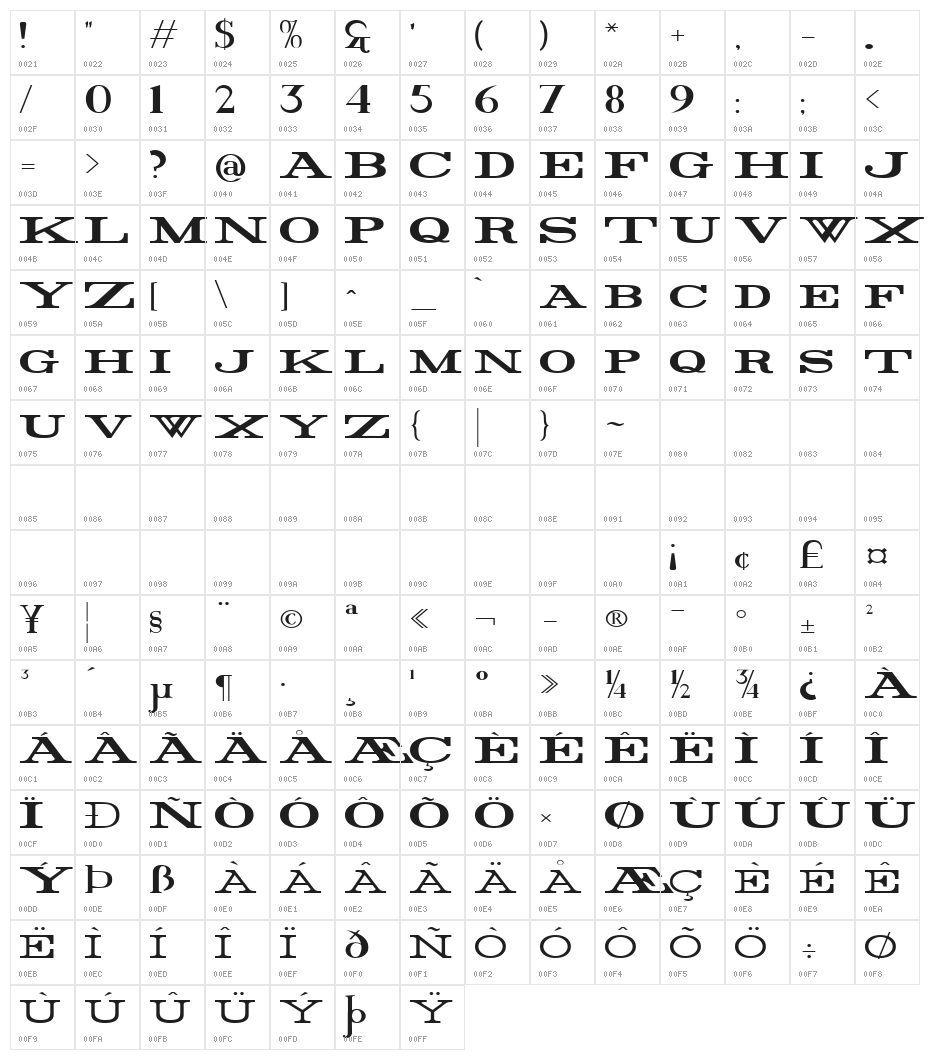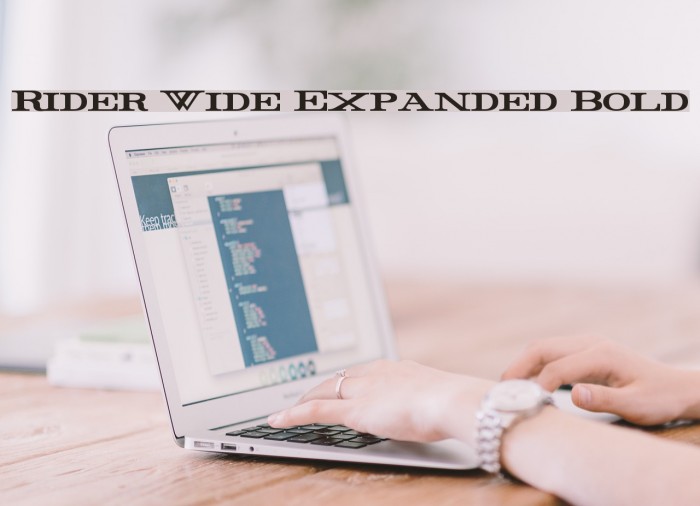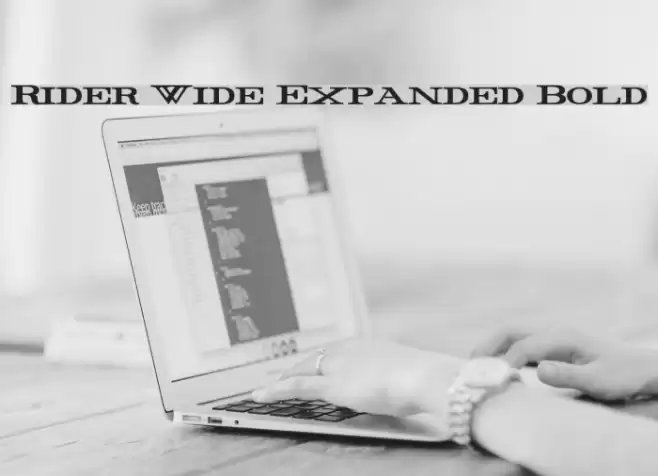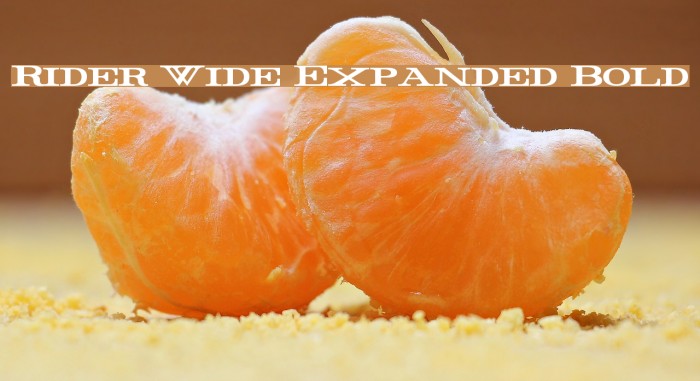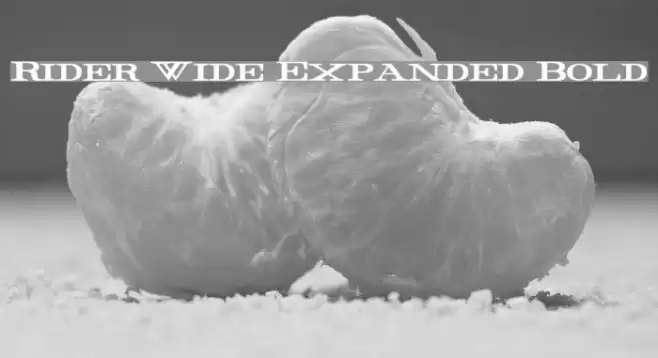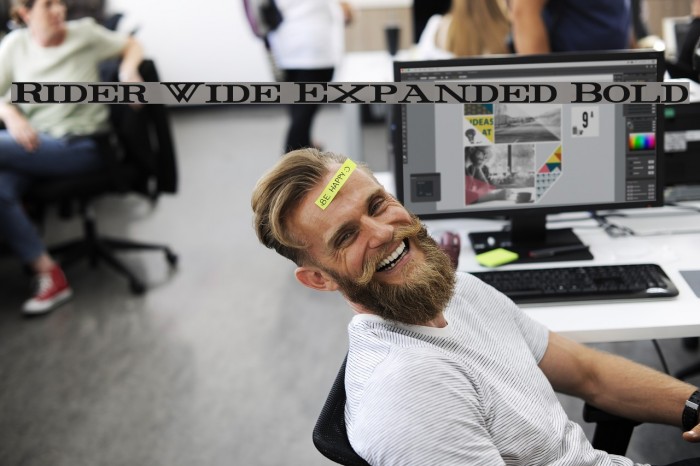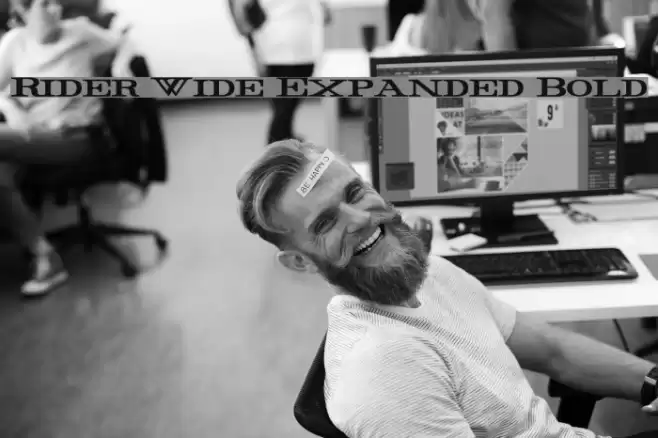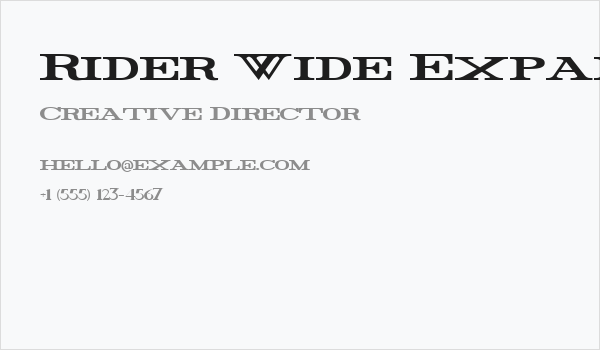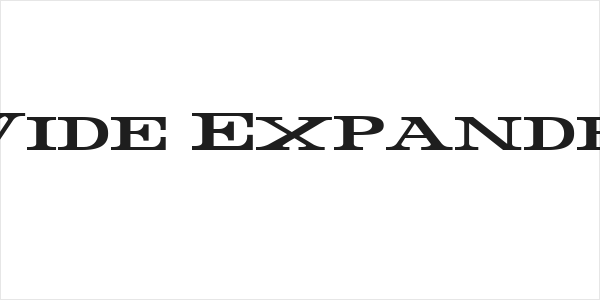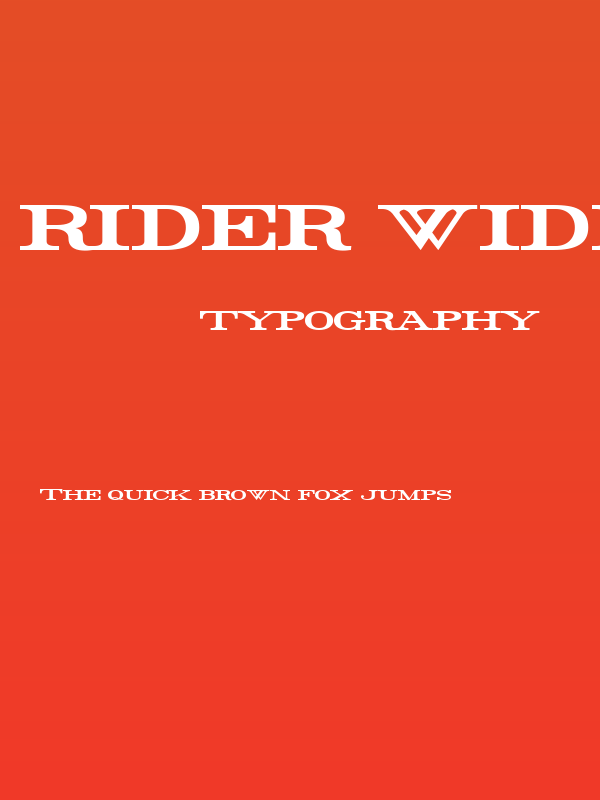
Rider Wide Expanded Bold Font
Rider Wide Expanded Bold Description
This font features a bold and expansive design, characterized by its wide letterforms and strong presence. The uppercase letters are particularly striking, with a distinct serif style that adds a touch of elegance and authority. The numerals are equally bold, maintaining the font's overall robust appearance. Special characters are designed with the same boldness, ensuring consistency across all glyphs. The font's wide spacing and expanded width make it ideal for making a statement, while its bold weight ensures readability and impact.
| Proposed Projects | Ideal for headlines, branding, posters, and any project requiring a strong, impactful typeface. |